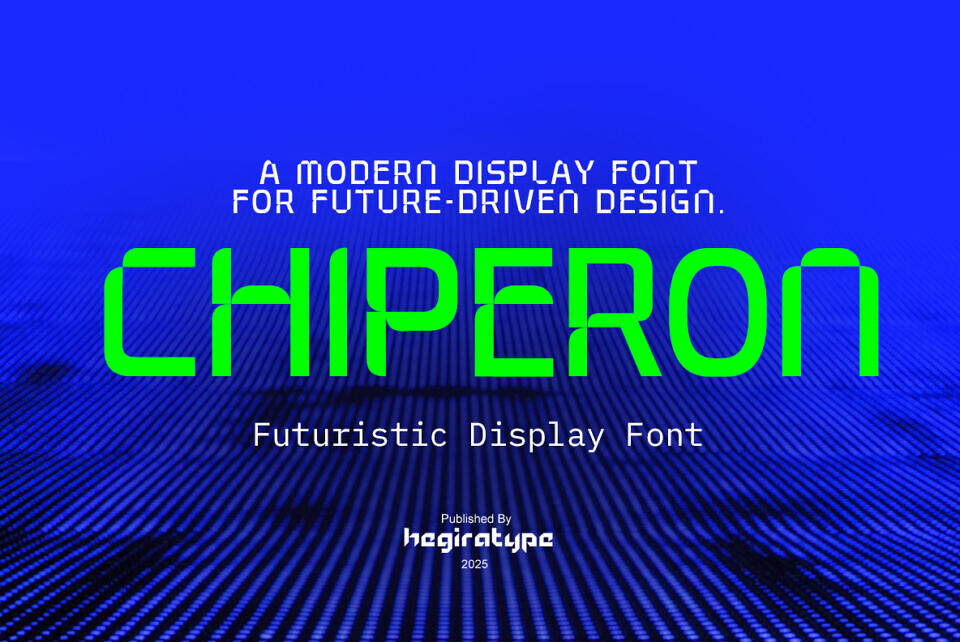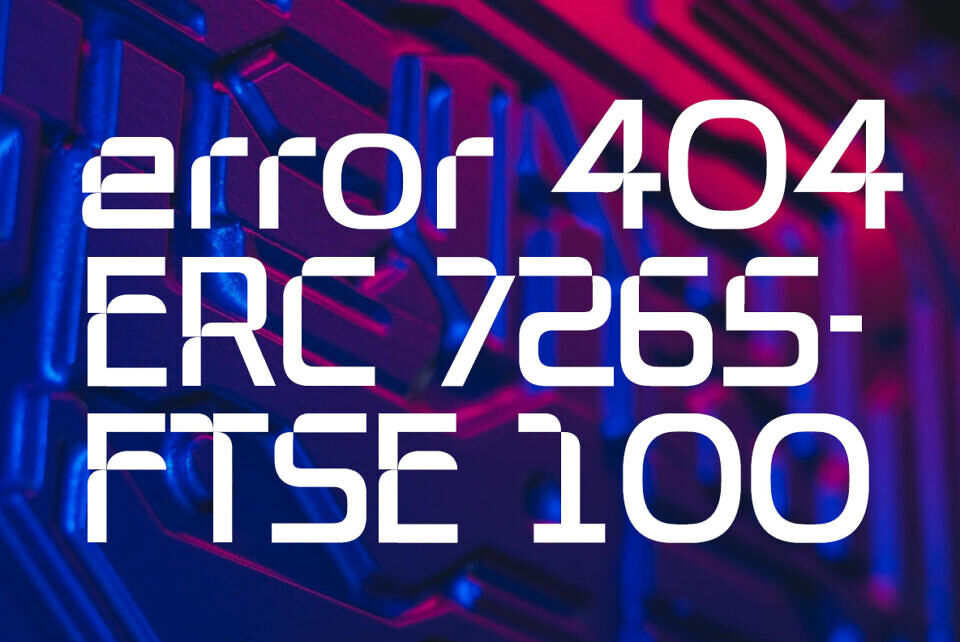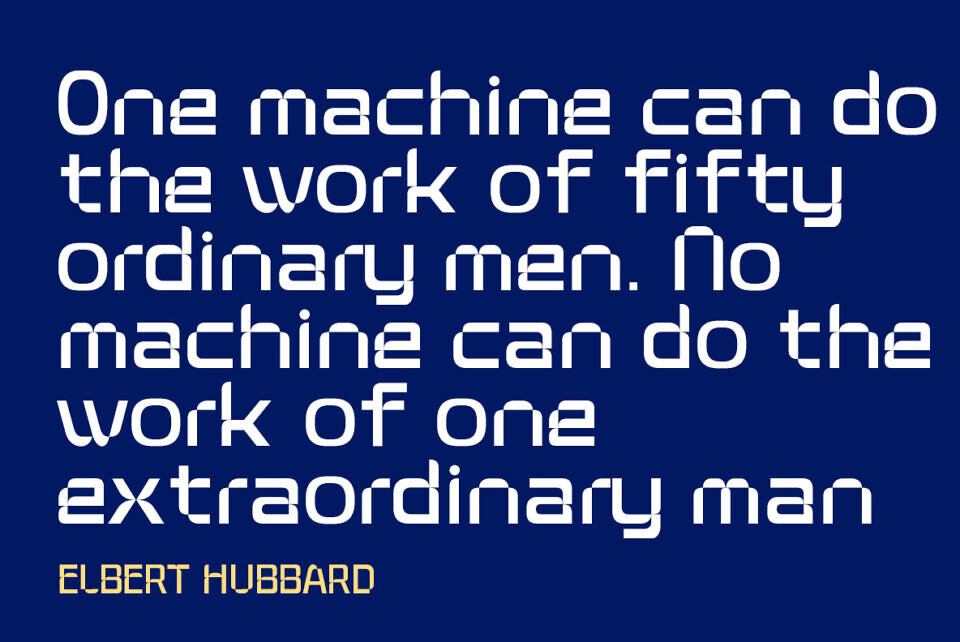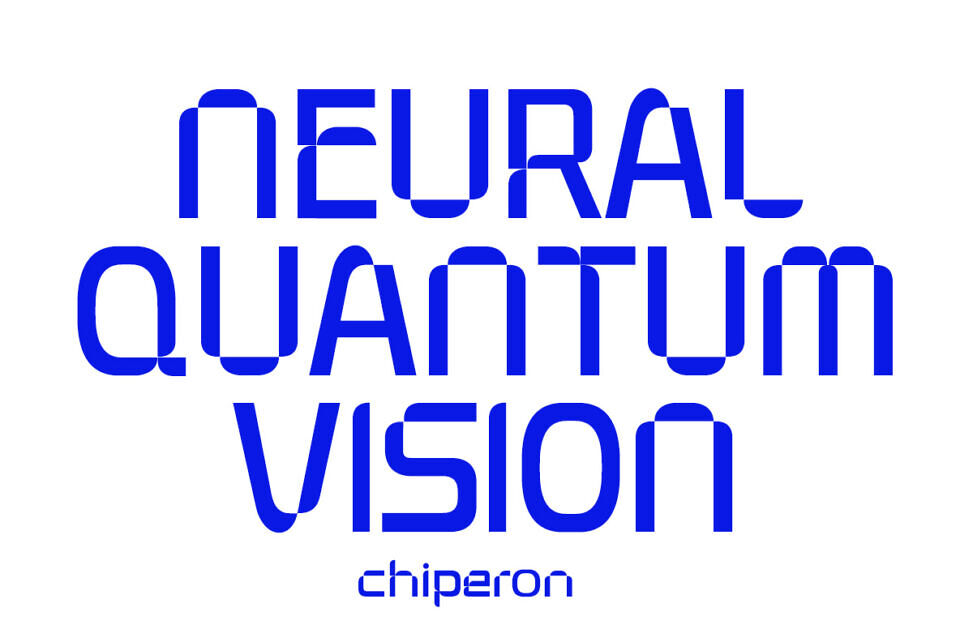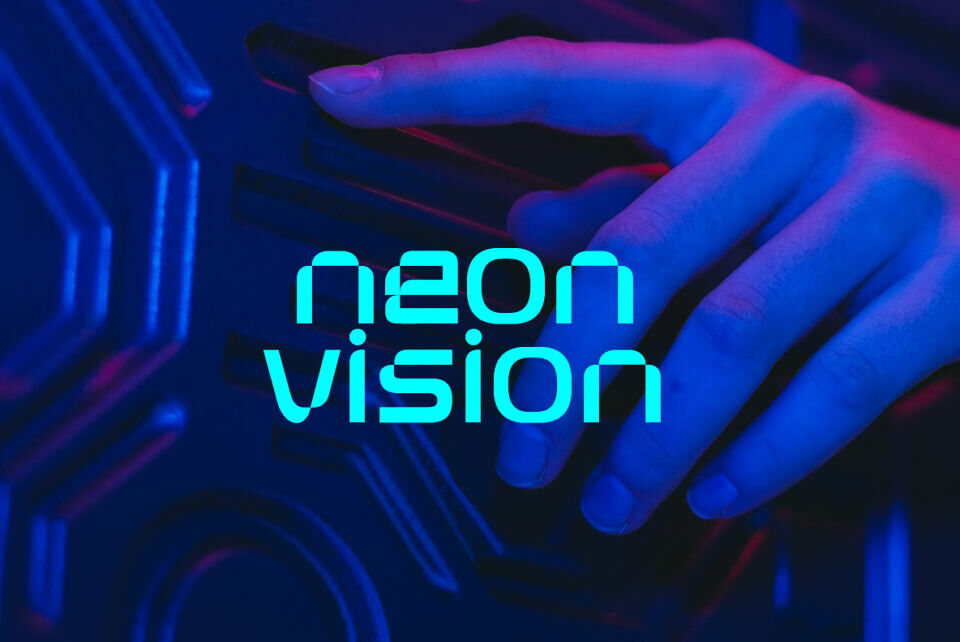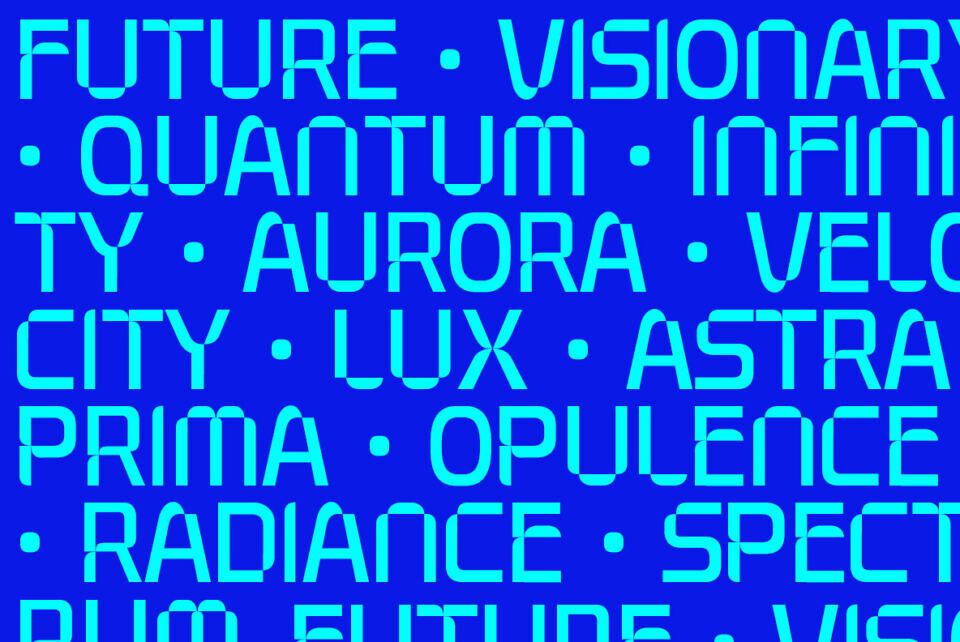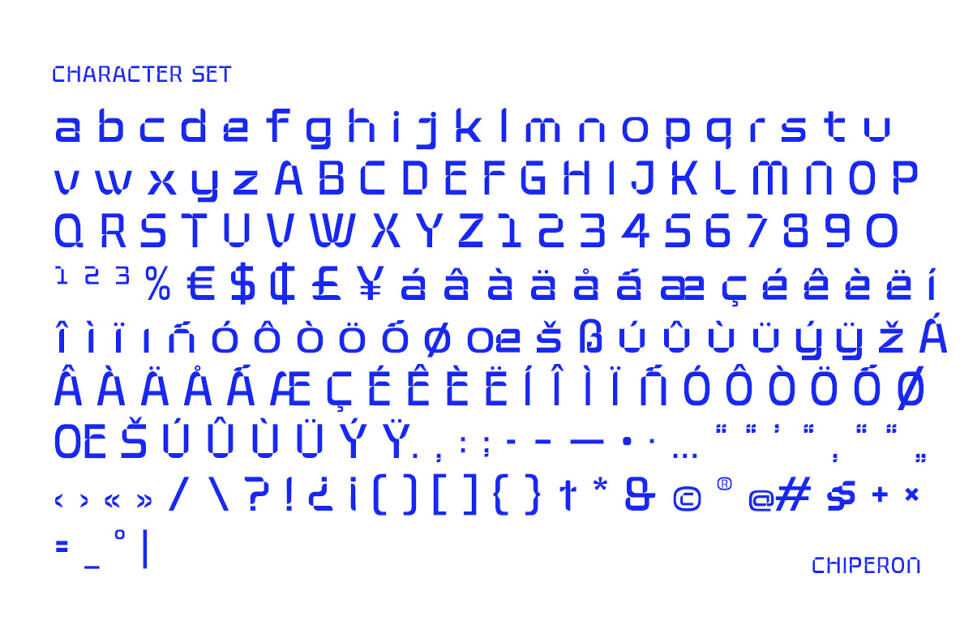
Chiperon Font
Chiperon is a modern futuristic display font crafted to embody the spirit of advanced technology, precision, and minimalist aesthetics. Inspired by bold geometric forms with clean lines and dynamic cuts, Chiperon delivers typography that feels visionary.
The font is perfect for branding, posters, UI/UX, album covers, editorial design, and visual identity projects that aim to stand out with an elegant yet experimental touch. With its balance of readability and futuristic style, Chiperon becomes the ideal choice for designs that move toward innovation and the future.